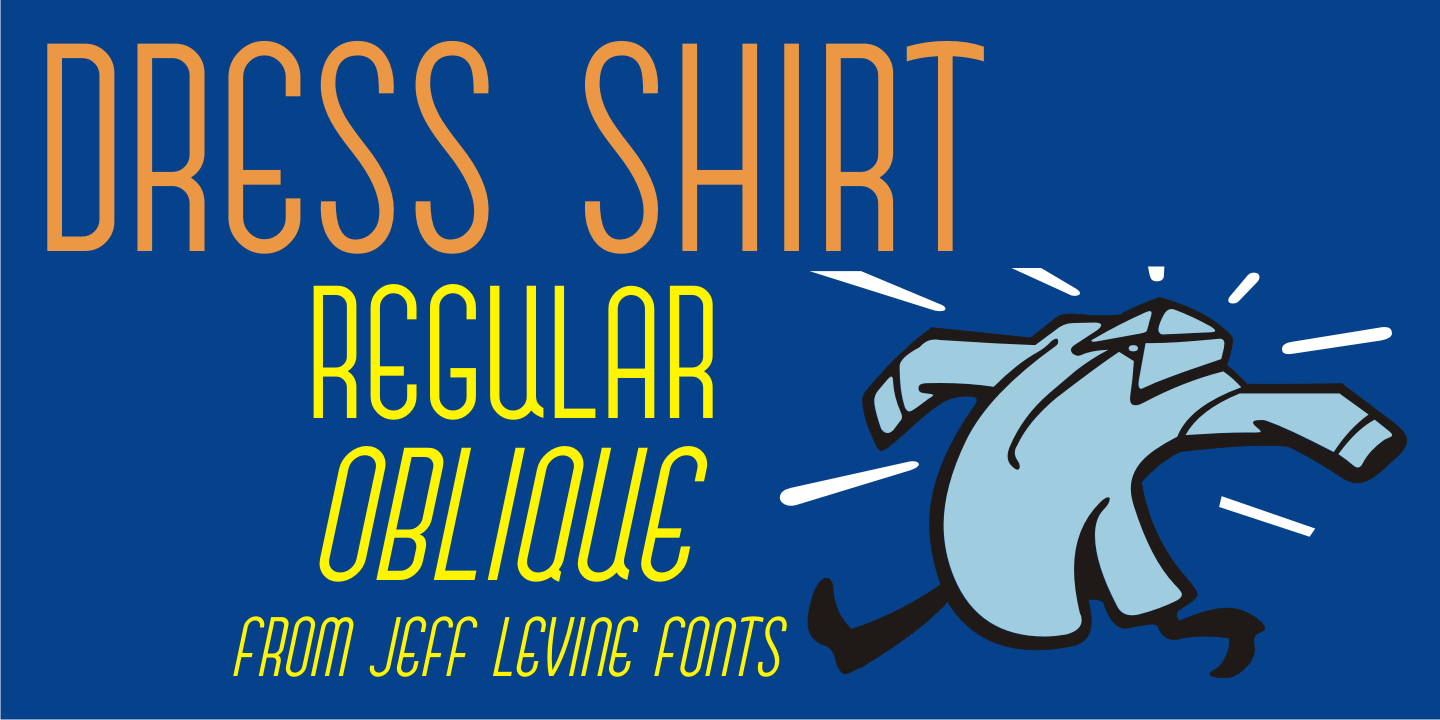
Designed by Jeff Levine, Dress Shirt JNL is a art deco font family. This typeface has two styles and was published by Jeff Levine Fonts.
A sample of monogram lettering entitled “Style 204 – Modern Block” (probably circa 1940s) yielded the thin Art Deco alphabet model for Dress Shirt JNL, which is available in both regular and oblique versions.